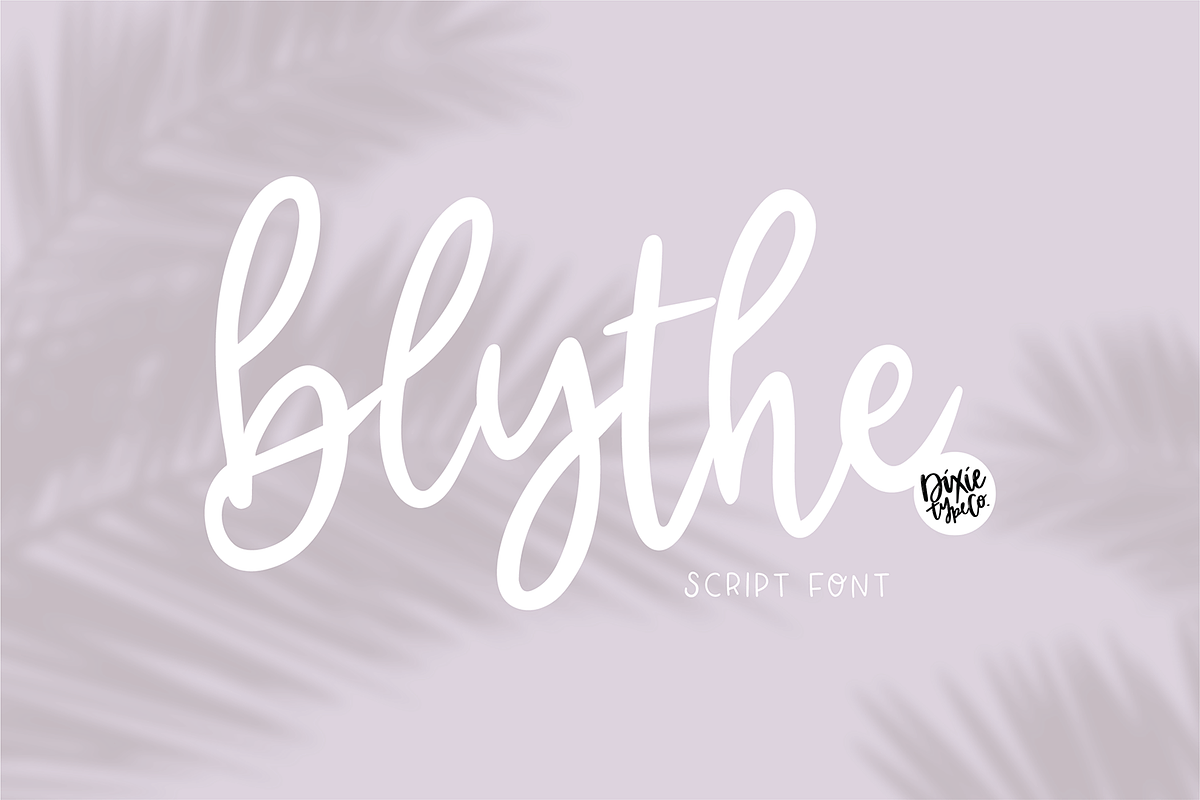
BLYTHE Hand Lettered Script Font Free Download is an elegant and expressive script typeface that captures the natural flow of hand-lettered typography. Perfect for wedding invitations, branding, social media graphics, and creative projects, this font adds a personal and artistic touch to any design.
With its smooth curves, dynamic strokes, and artistic flair, BLYTHE Hand Lettered Script Font Free Download brings a warm, handwritten charm to your designs. Whether you're creating a romantic event invitation, a unique logo, or a heartfelt greeting card, this font enhances your message with beauty and authenticity. Try it out in your next project and experience its natural elegance—then upgrade to a commercial license when you're ready to launch your design.